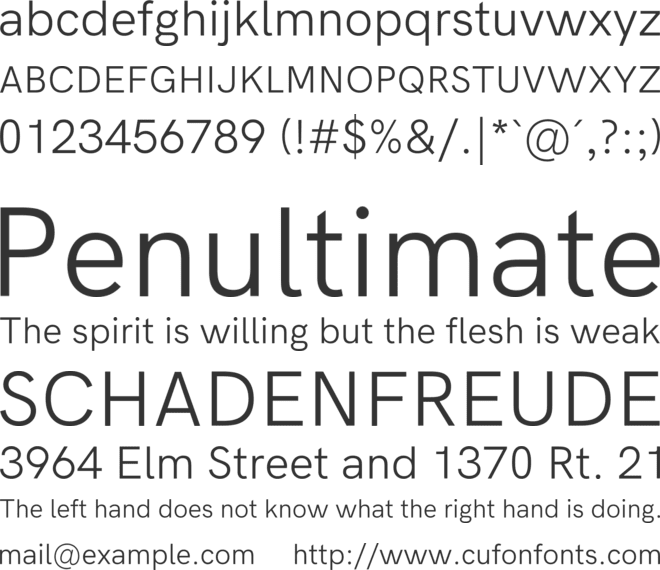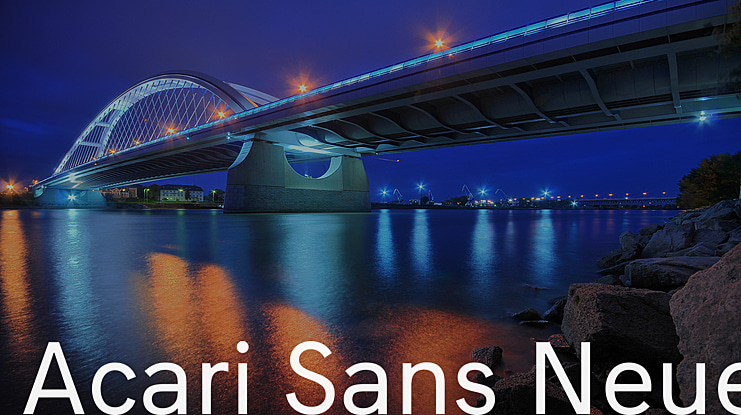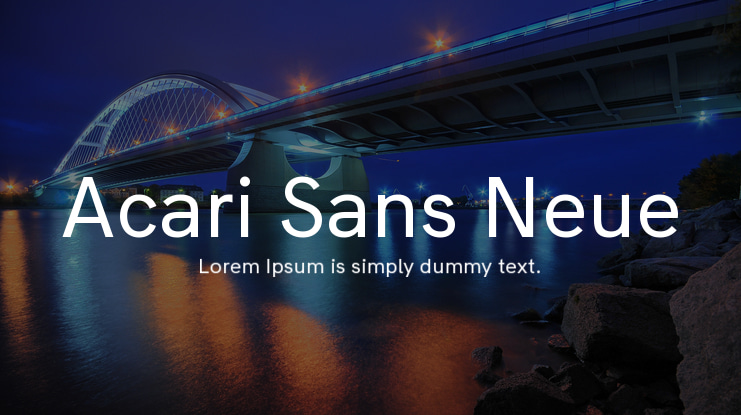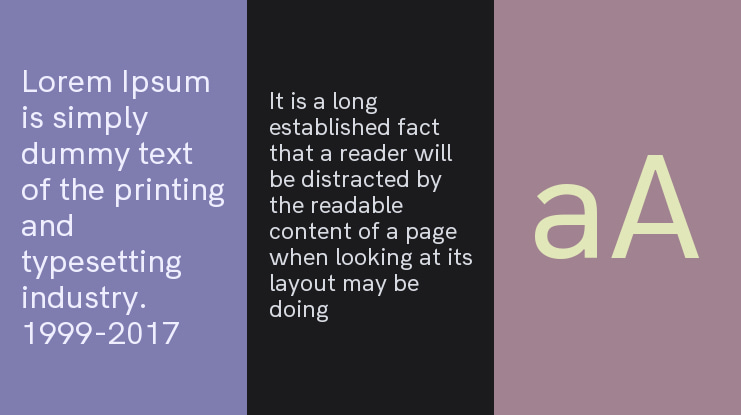
Acari Sans Neue Font Family
Acari Sans Neue is developed from Hanken Grotesk. In March 5, 2019, the font HK Grotesk was turned back to 5 weights, whereas this Hanken Grotesk has 7. So, we decided to fork that font and share it here. Changes are a new 'J' and flat-terminal numerals.